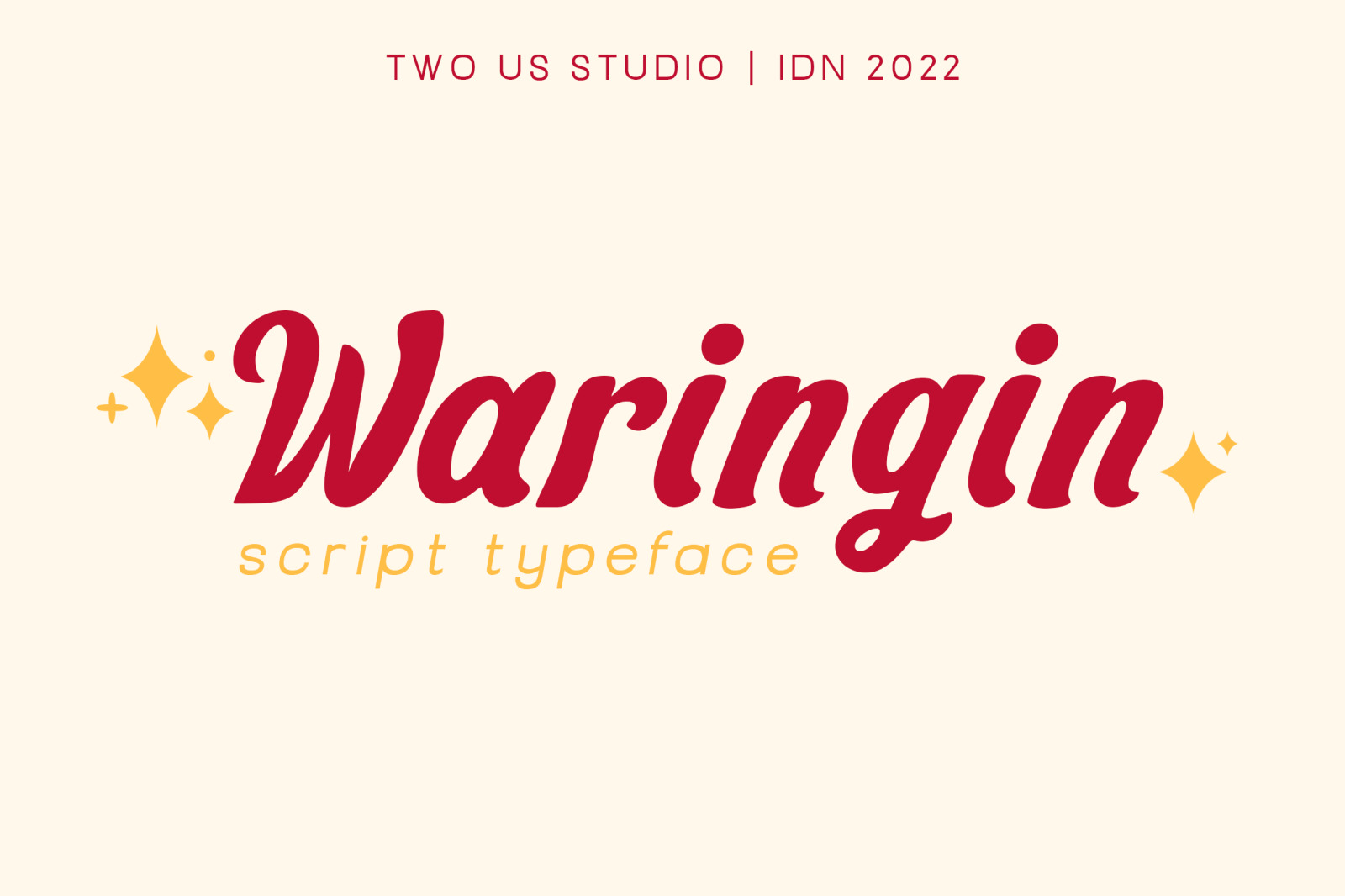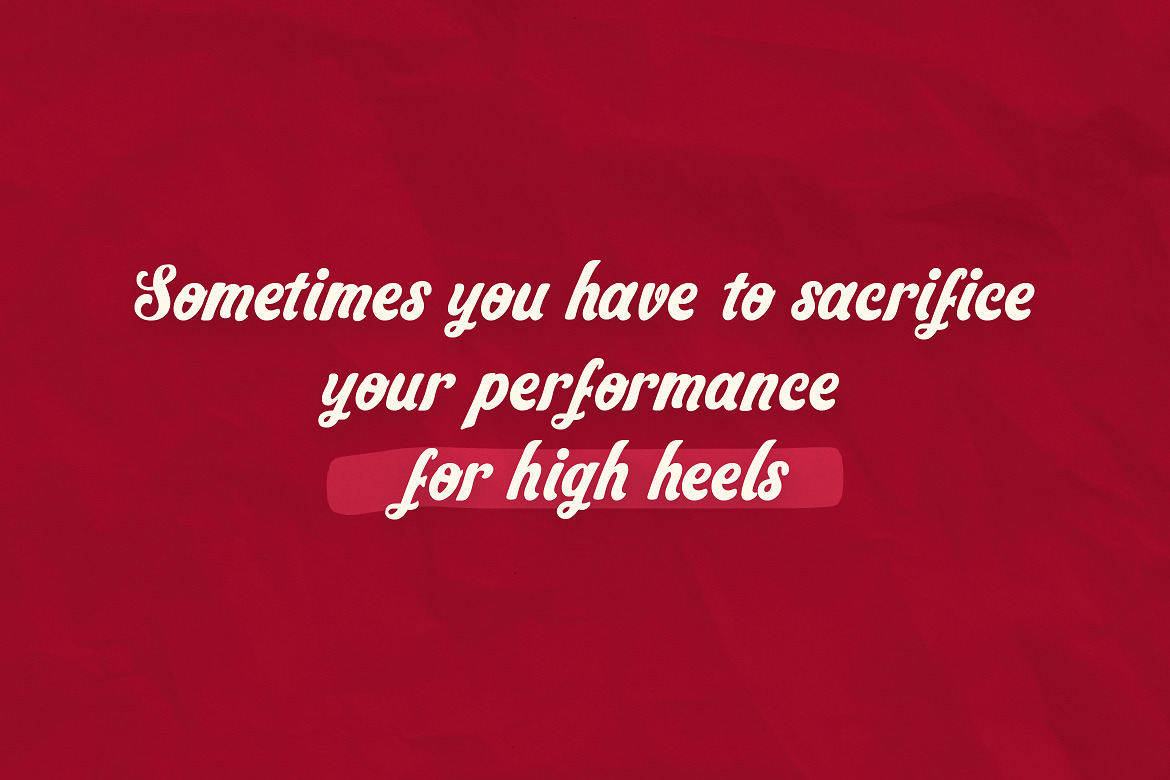
Waringin - Script Typeface
Waringin is a beauty script font. This minimalist and clean font can easily become your favorite. It can be used for books, magazines, social media posts, invitations, and so much more! So add this to your creations and take your designs to the next level!